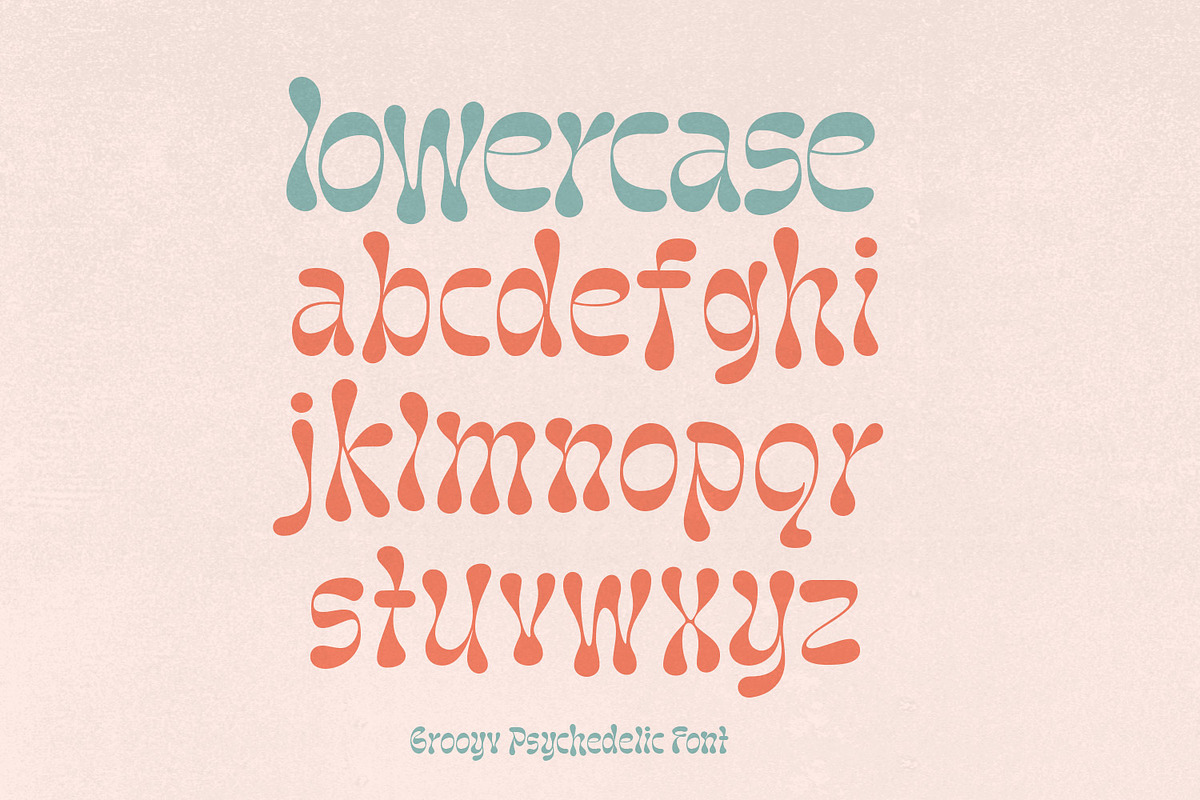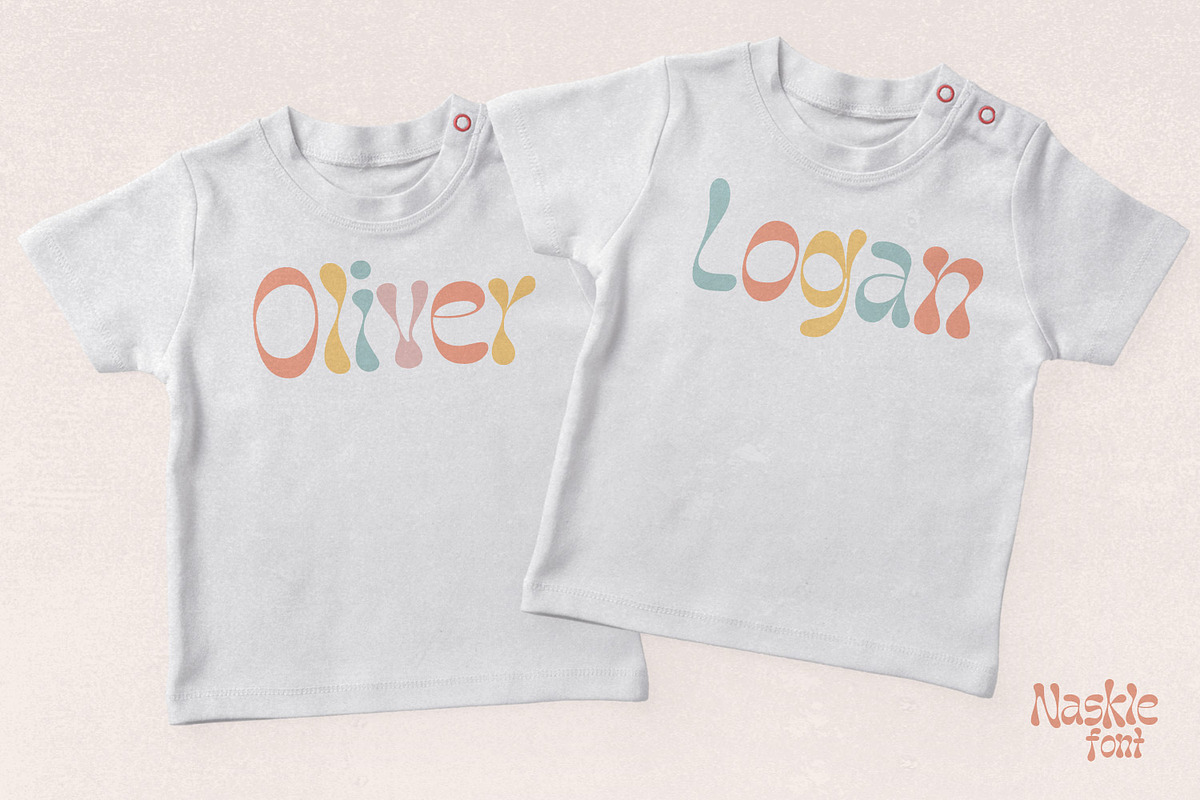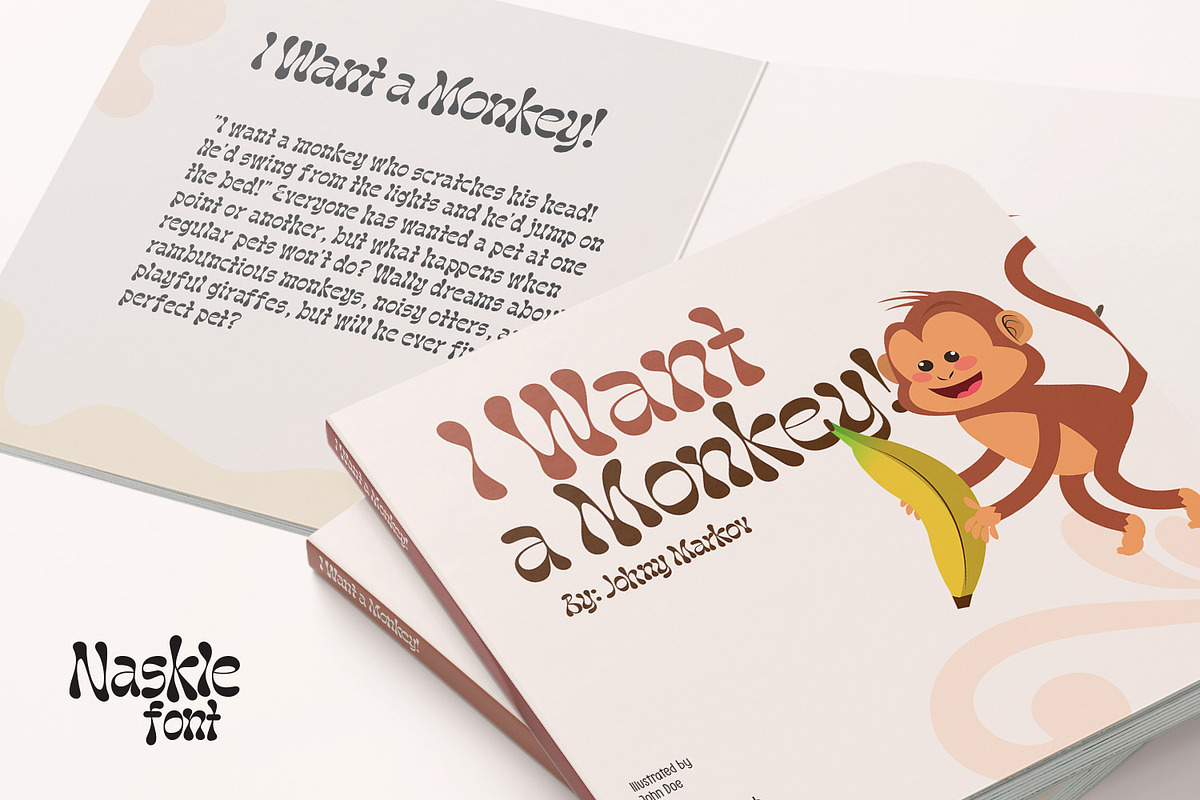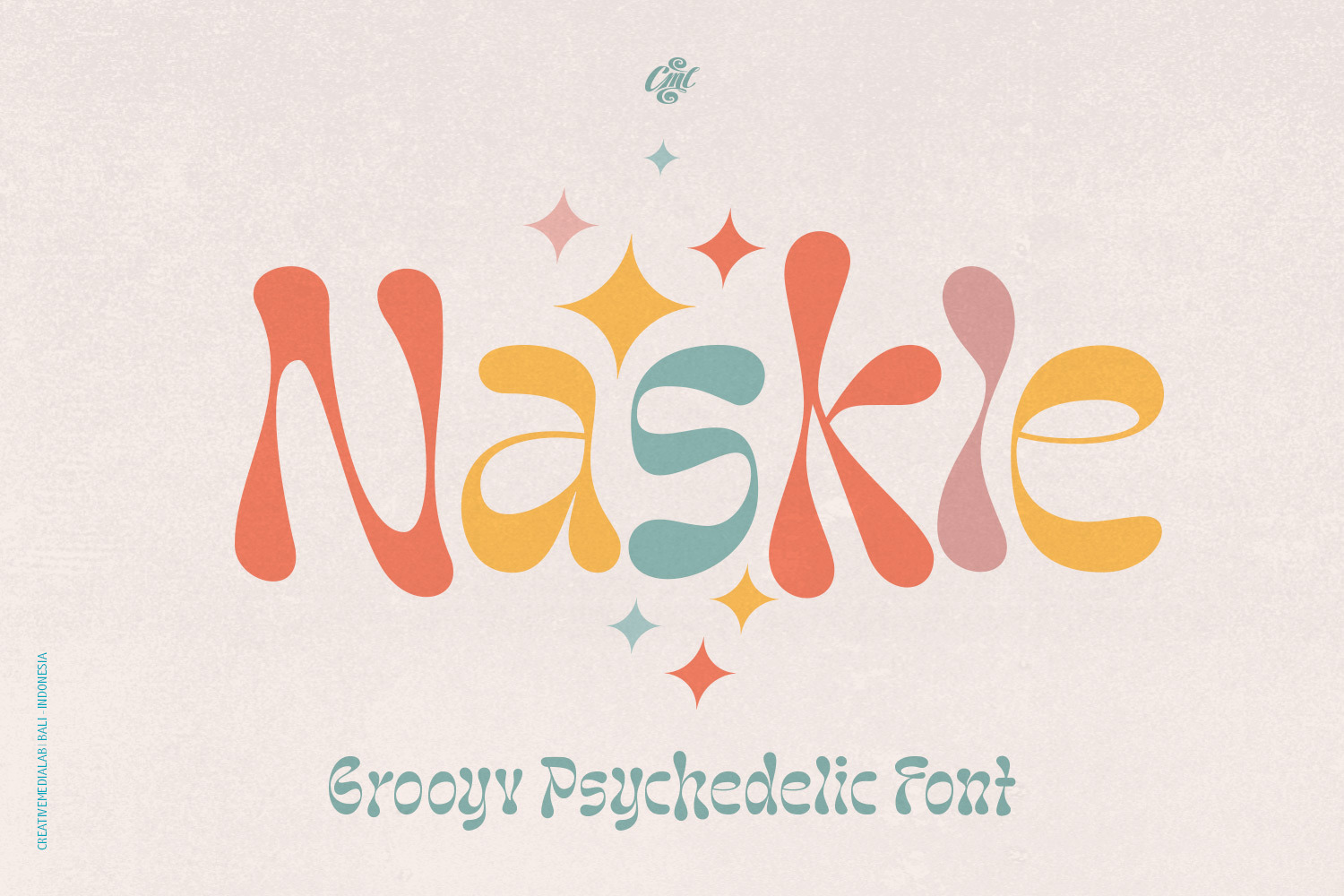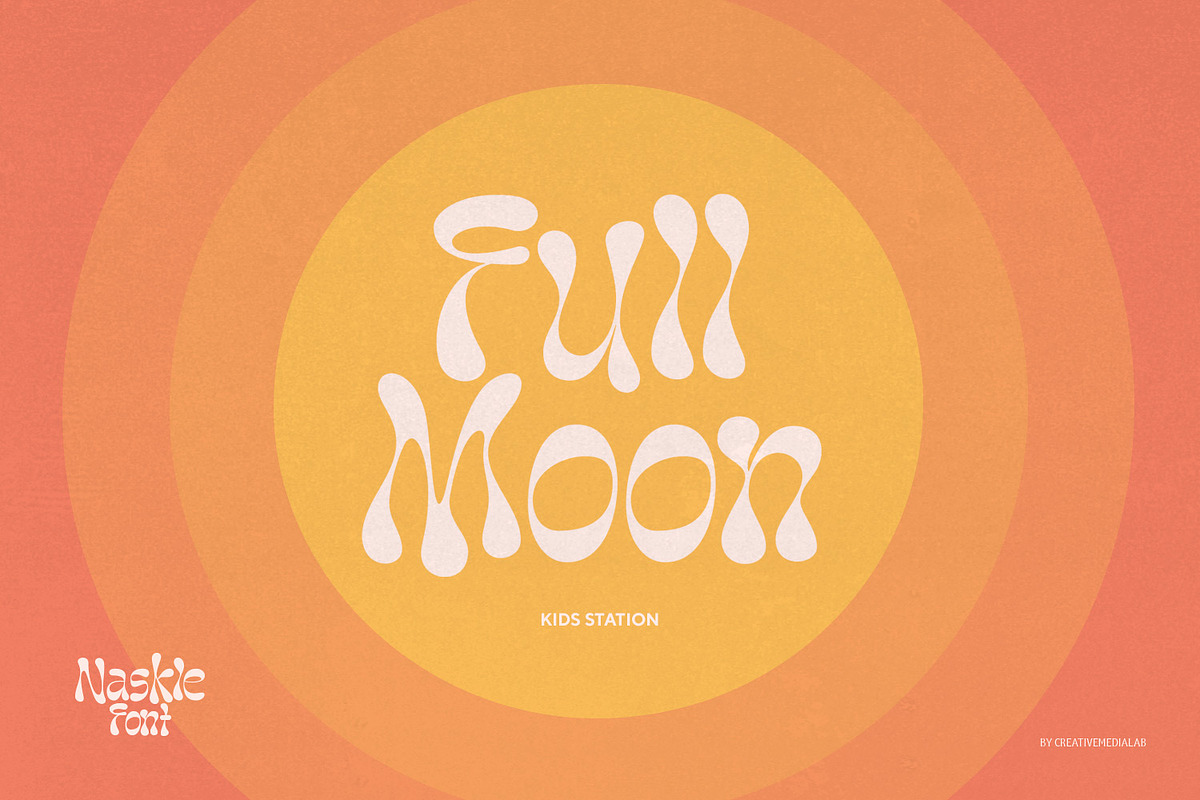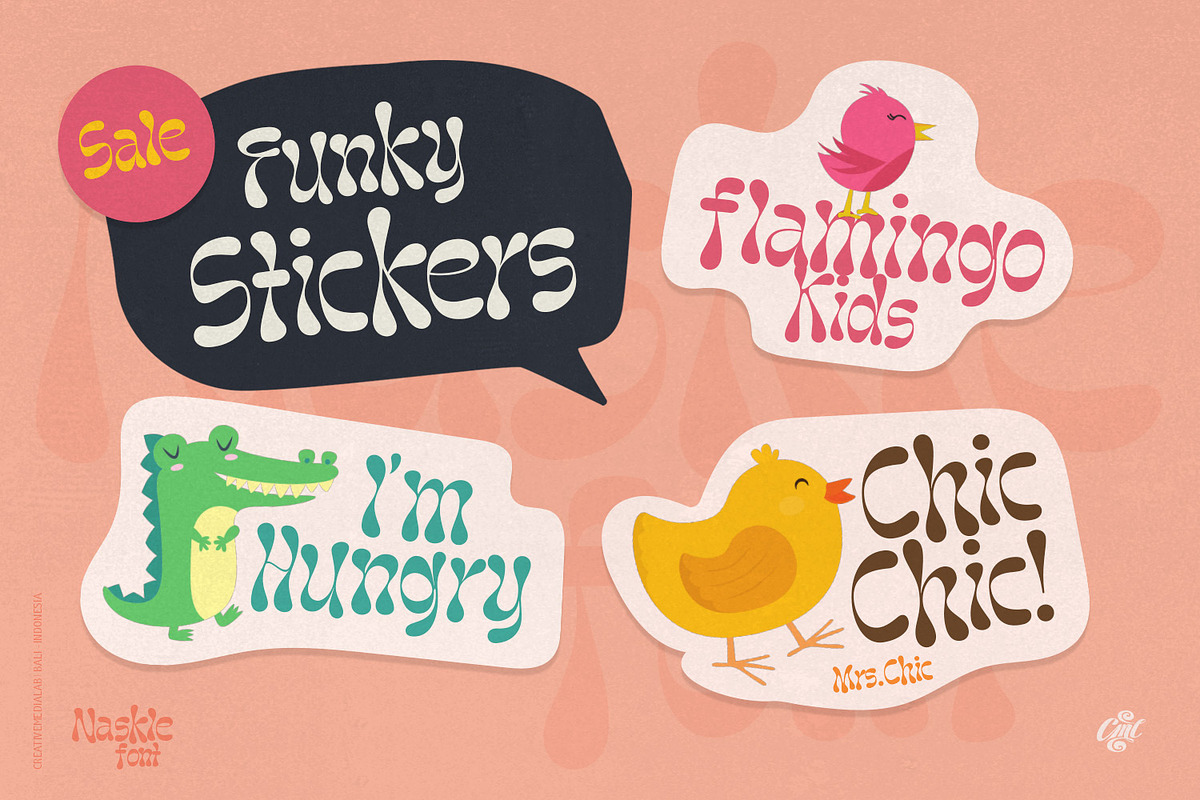
Naskle - Groovy Psychedelic Font
Naskle featuring unique shape letters, this fun retro psychedelic font is ideal for any vintage theme concept, Illustration posters, stickers, fun graphics and more